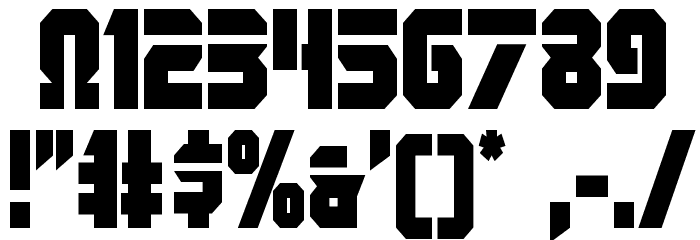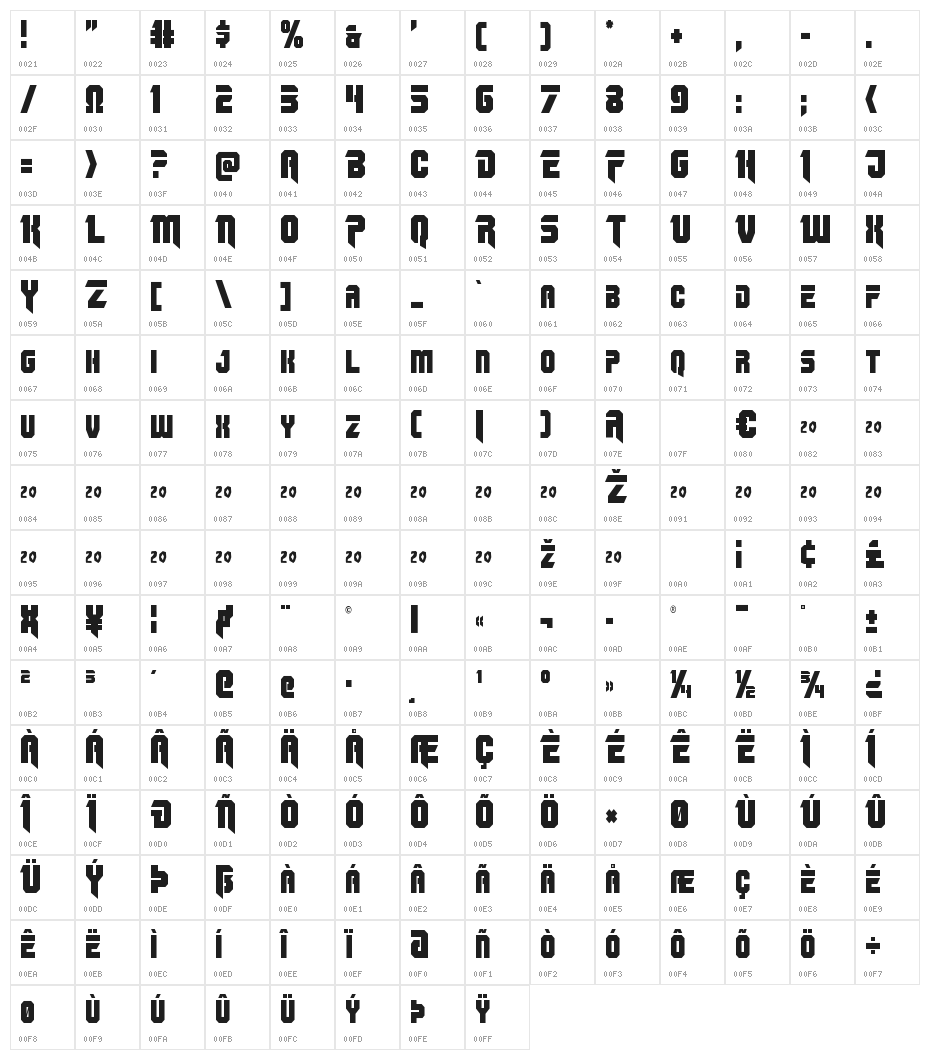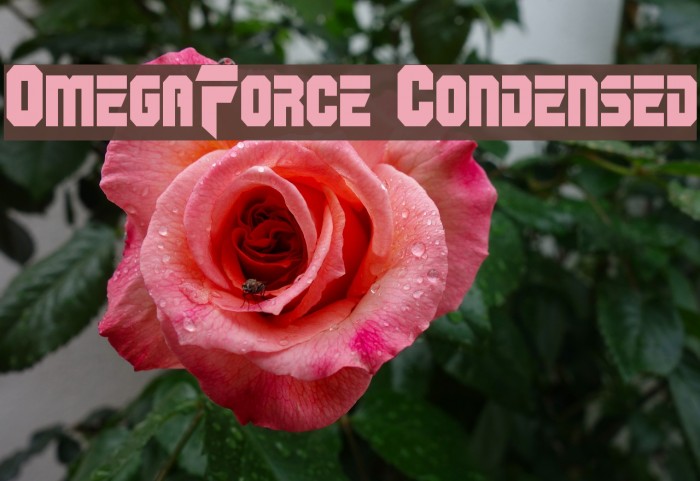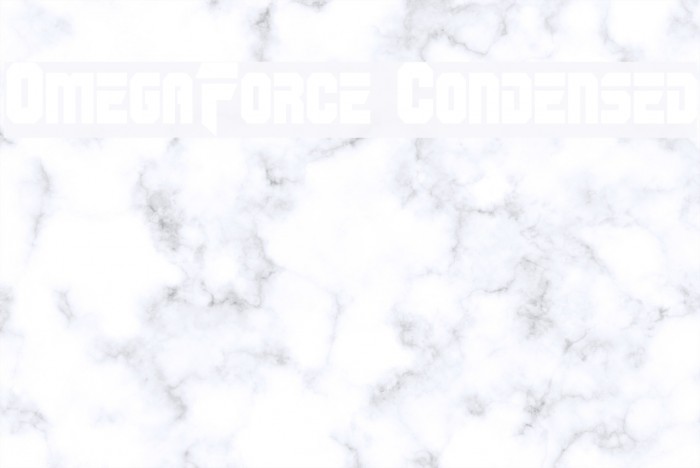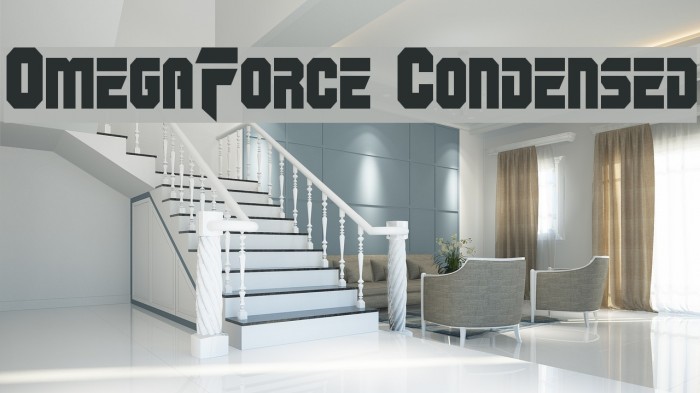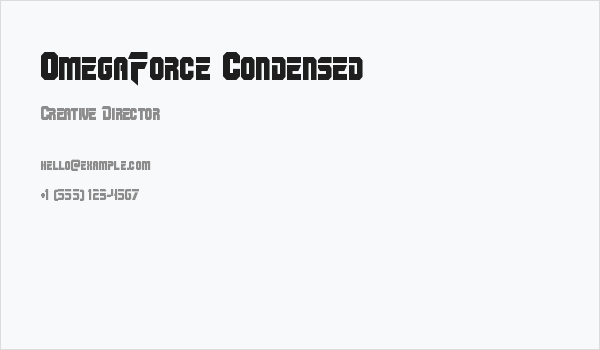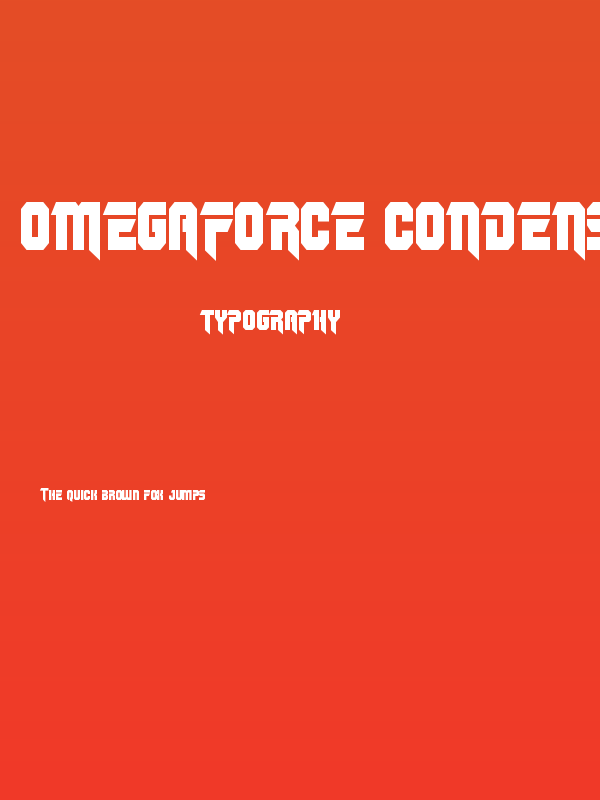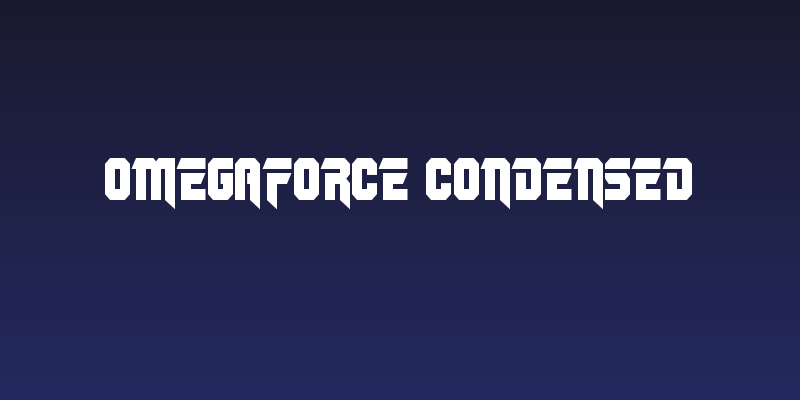
OmegaForce Condensed Font
This font features a bold, geometric design with sharp angles and a futuristic aesthetic. The characters are condensed, giving them a compact appearance that emphasizes their strong, impactful presence. The uppercase letters are particularly striking, with a uniform height and width that creates a cohesive look across the alphabet. The numbers and special characters maintain this bold style, ensuring consistency throughout. The font's unique style makes it ideal for projects that require a modern, edgy look, such as tech branding, video game titles, or sci-fi themed designs.
Overall StyleFuturistic
Proposed ProjectsIdeal for tech branding, video game titles, sci-fi themed designs, and modern posters.